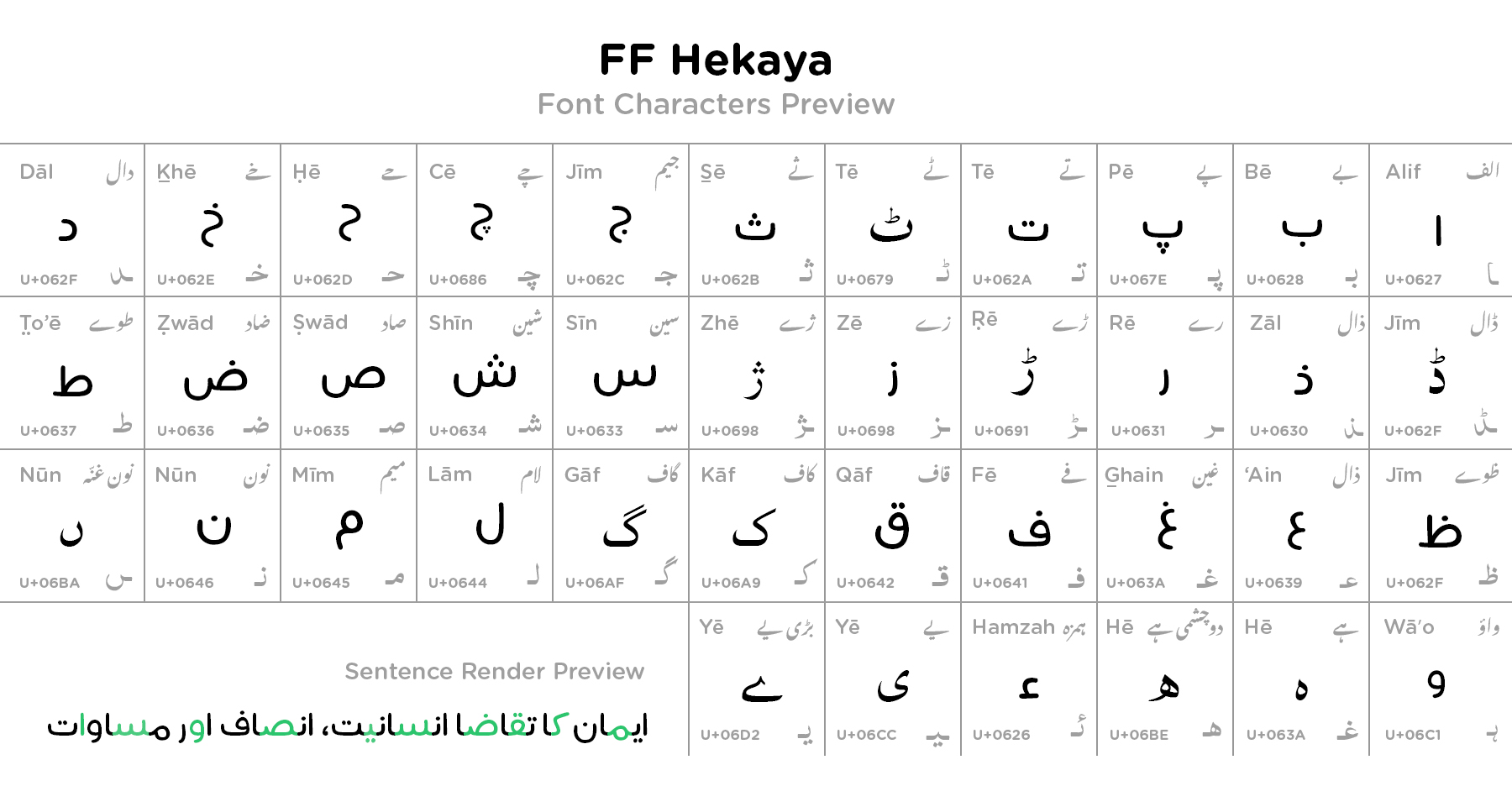
FF Hekaya is an Arabic typeface, developed by Fahd Al Fraikh and its rights were reserved in 2016. “Hekaya” is an Arabic word that means tale or Storytelling. It’s a cute bubbly font that is normally used for children’s books and products, to attract the kids. It is based on Latif handwriting and supports Arabic and Latin. It has a charset of 356 which includes letters, symbols, and punctuations in Arabic with a glyph count of 350. The font features letterforms with soft, rounded curves and plenty of bounce, resembling playful handwriting or balloons. The letters are filled with no embellishments and the unusual untidy look of this font makes it welcoming and joyful. Despite its bubbly style, FF Hekaya maintains good readability due to its clear letterforms and consistent spacing. Its playfulness makes it perfect for books, apps, or design elements aimed at young audiences. It has a large character set which makes it suitable to write different Urdu texts. The can be used to make headlines as well as it can be used to write plain body text. It is capable of enhancing any design with its own, refined style.